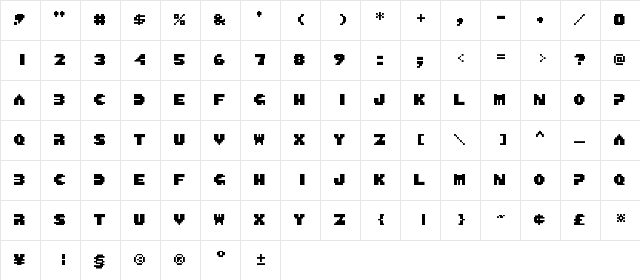
Baby Boomer Regular
Baby Boomer takes a measured approach to typography — its balanced proportions and neutral character make it a reliable workhorse for both digital and print work.